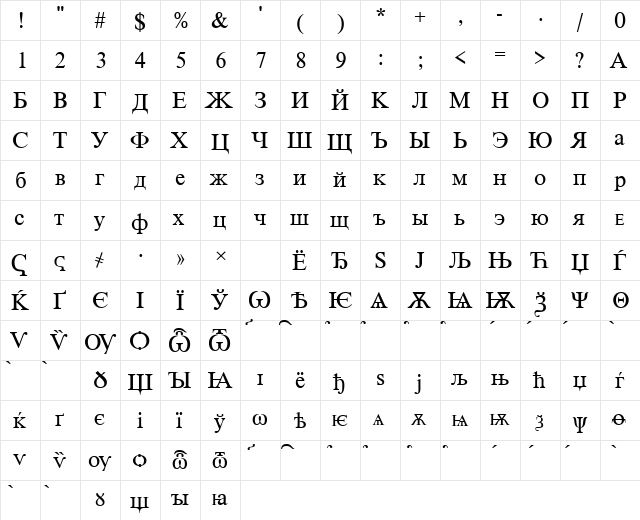
CyrillicChurchSlavonicTimesSSK Regular
Design Context for CyrillicChurchSlavonicTimesSSK Typeface
CyrillicChurchSlavonicTimesSSK offers clean, dependable letterforms without strong stylistic allegiance, making it a practical choice for designers who need flexibility.